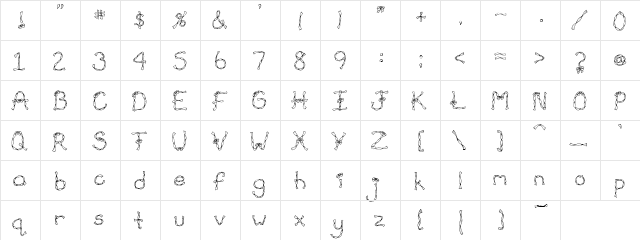
PC Twisted Ribbon Regular
Design Context for PC Twisted Ribbon Typeface
PC Twisted Ribbon is a composed and adaptable typeface that performs quietly and consistently across a wide range of design contexts.